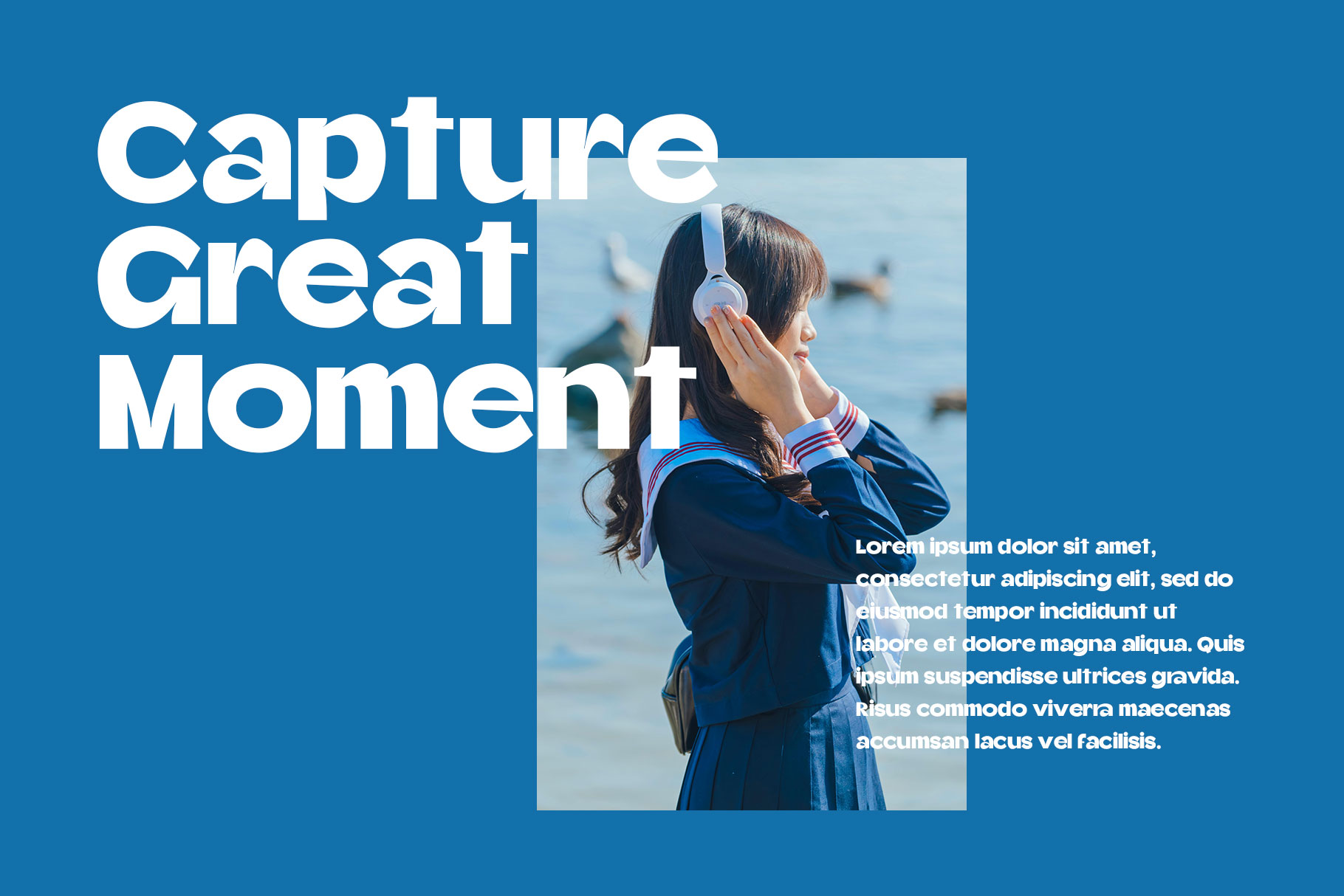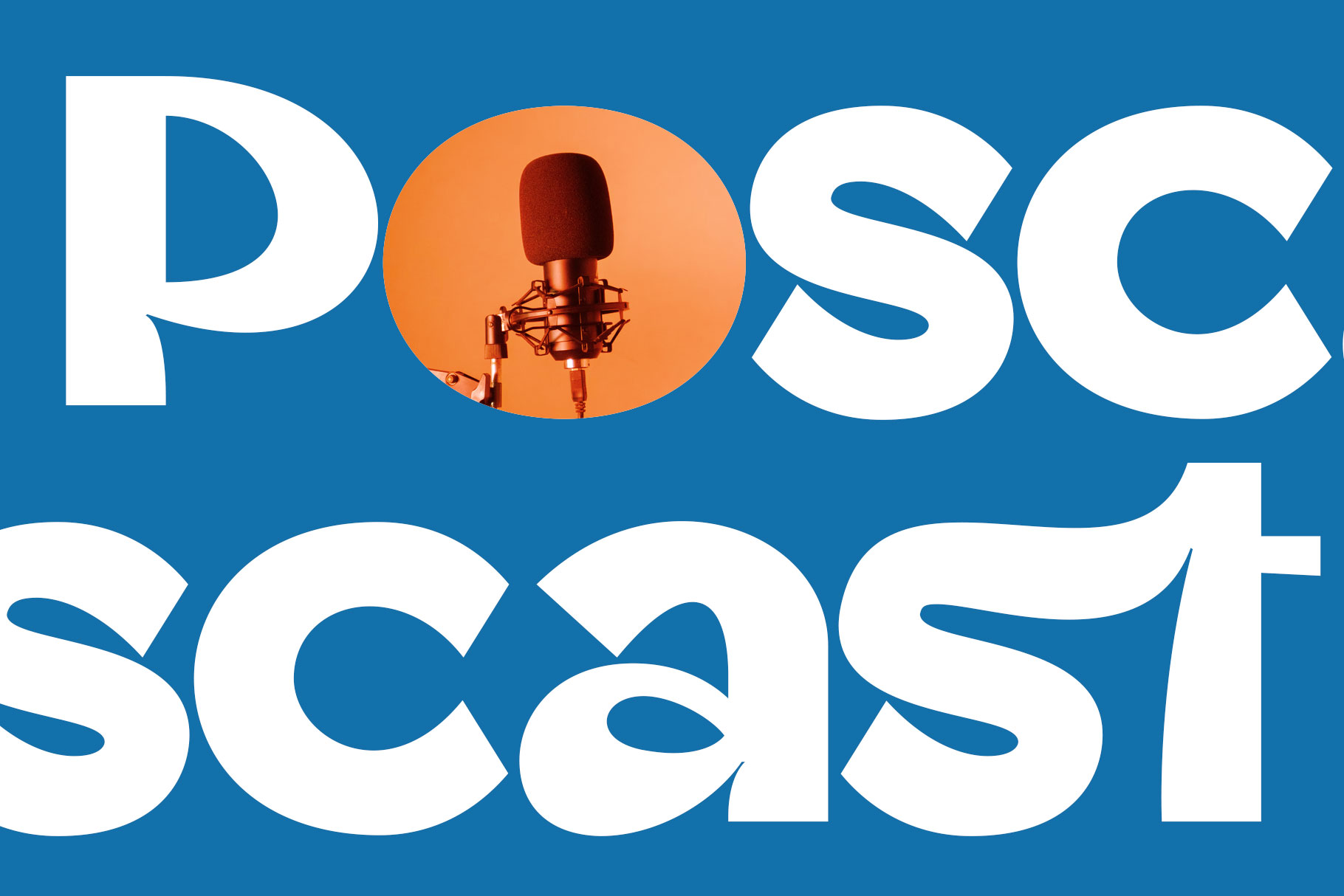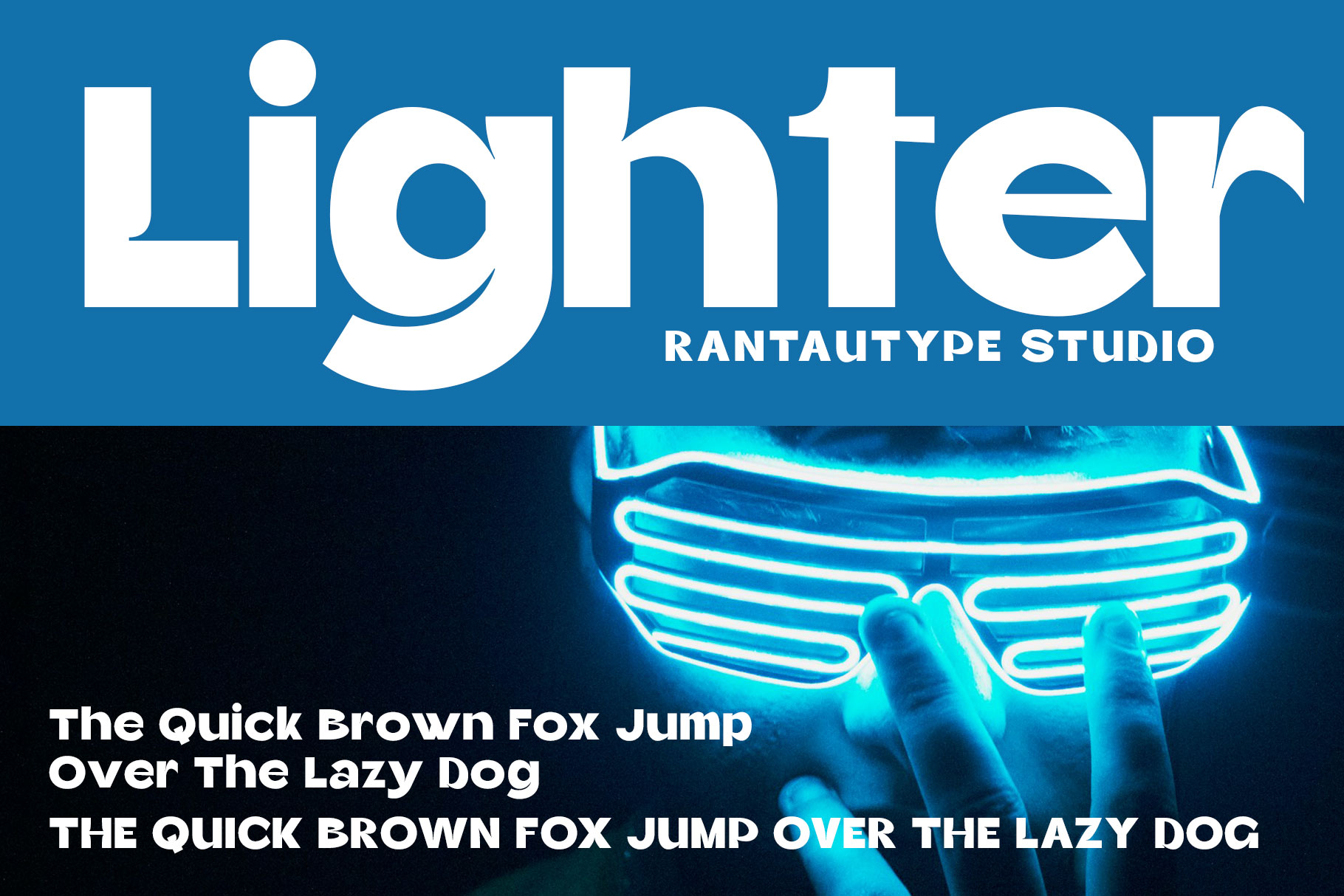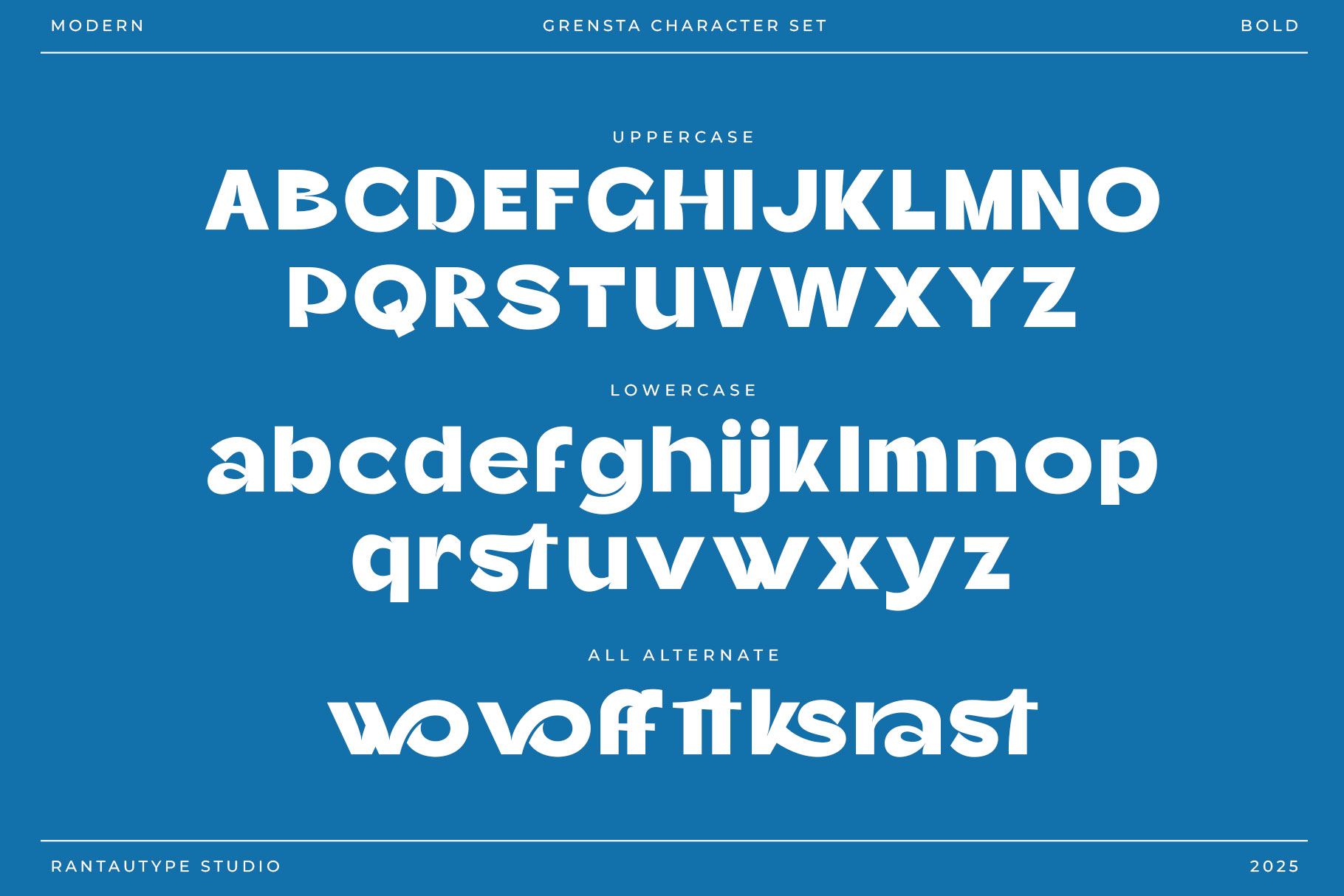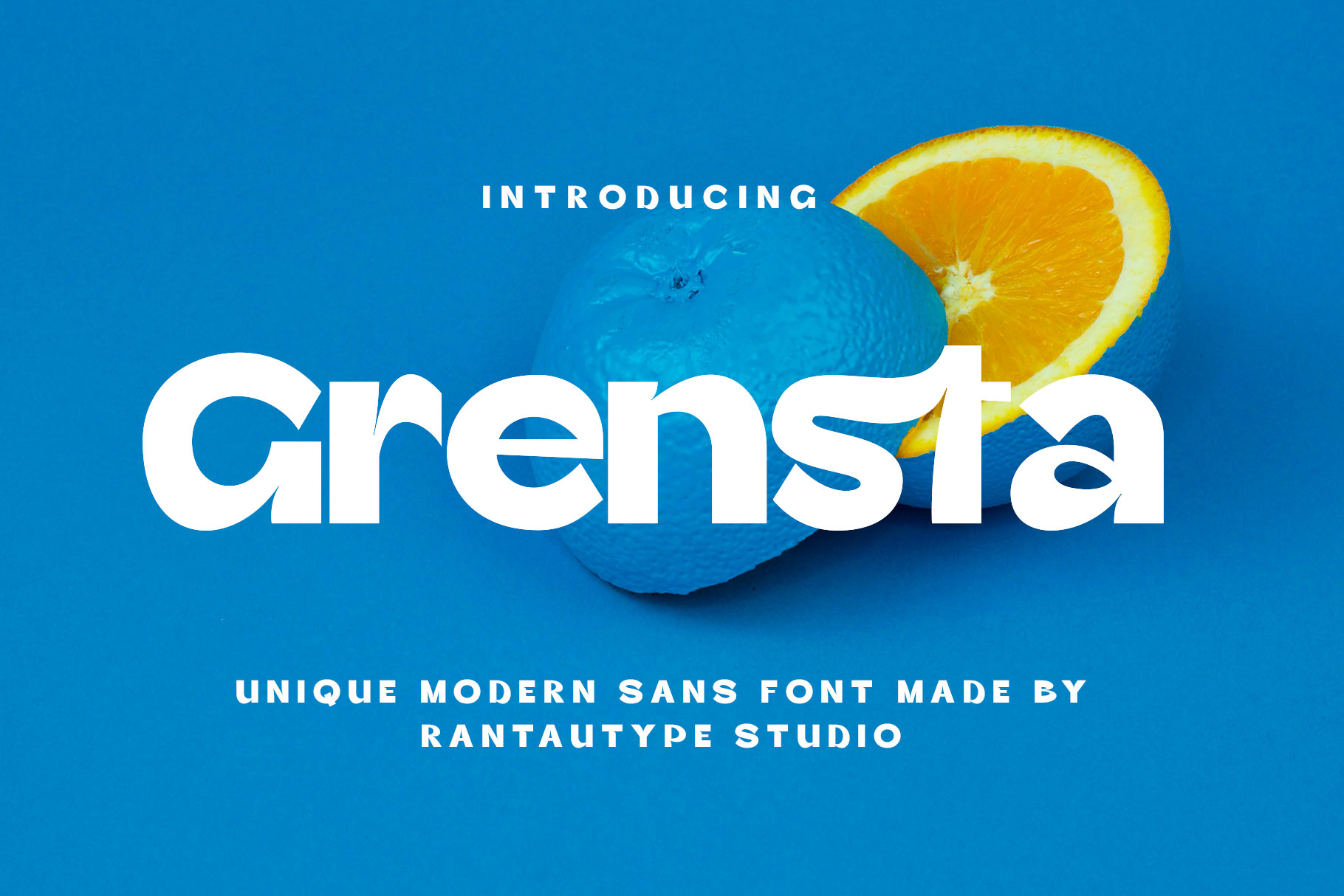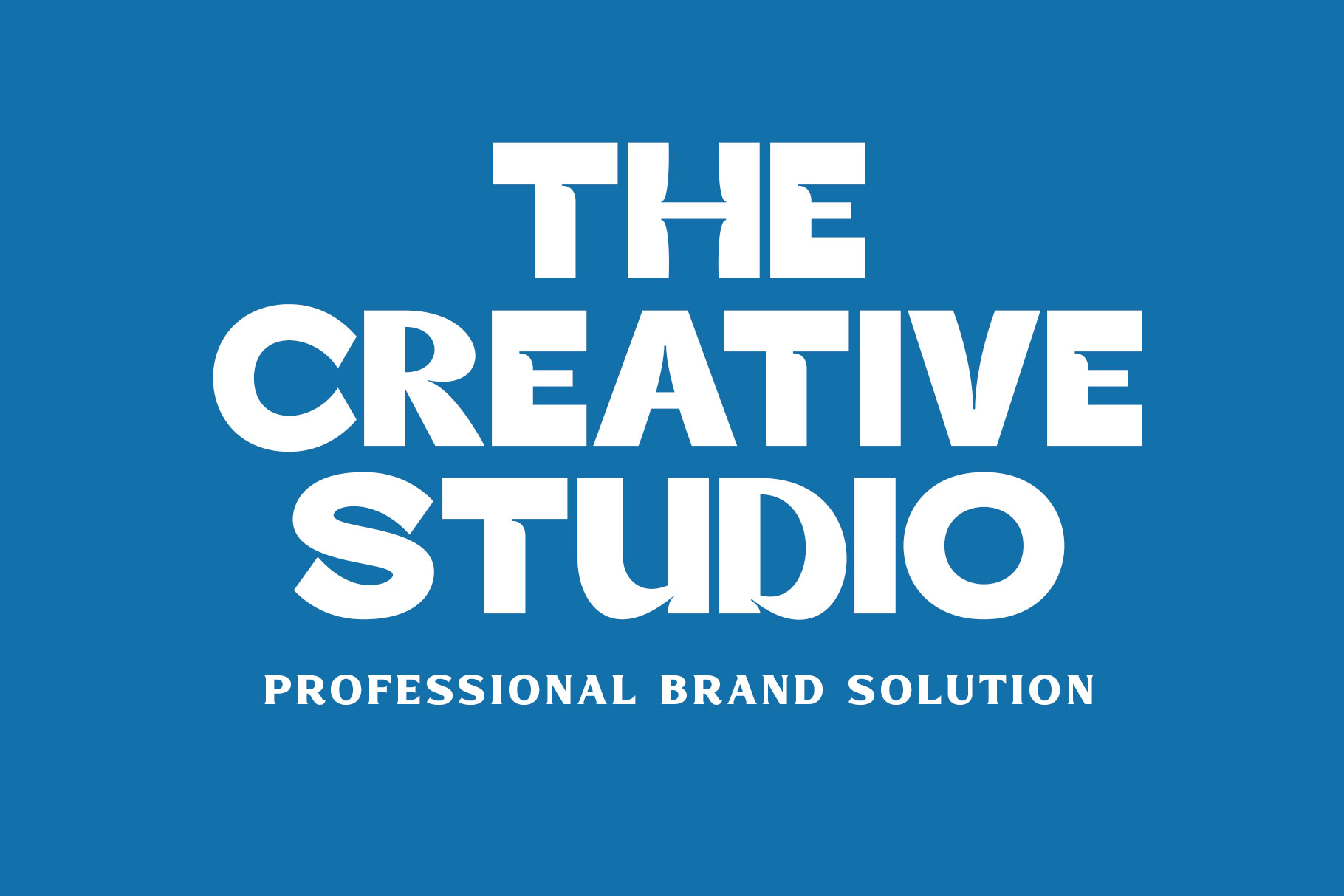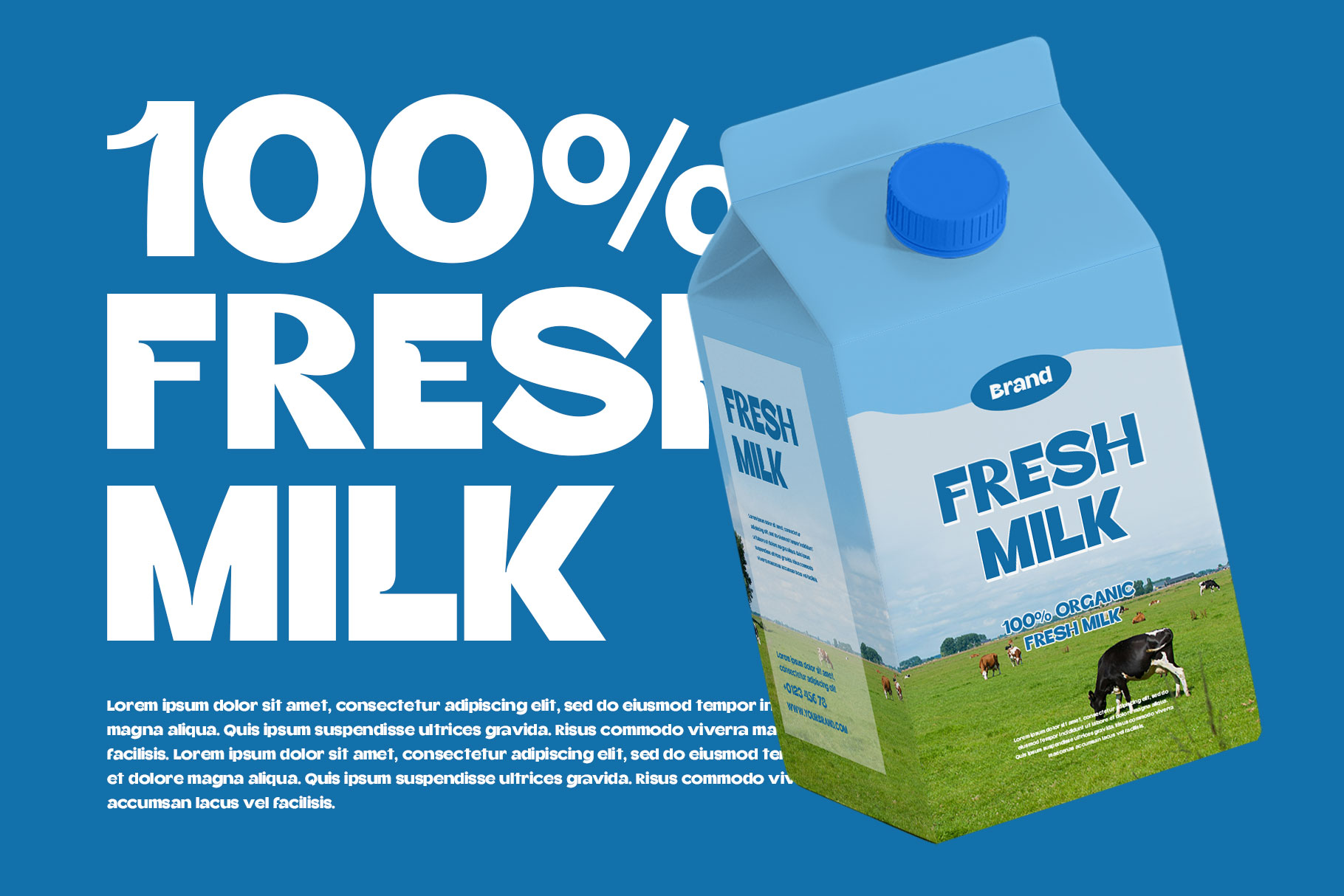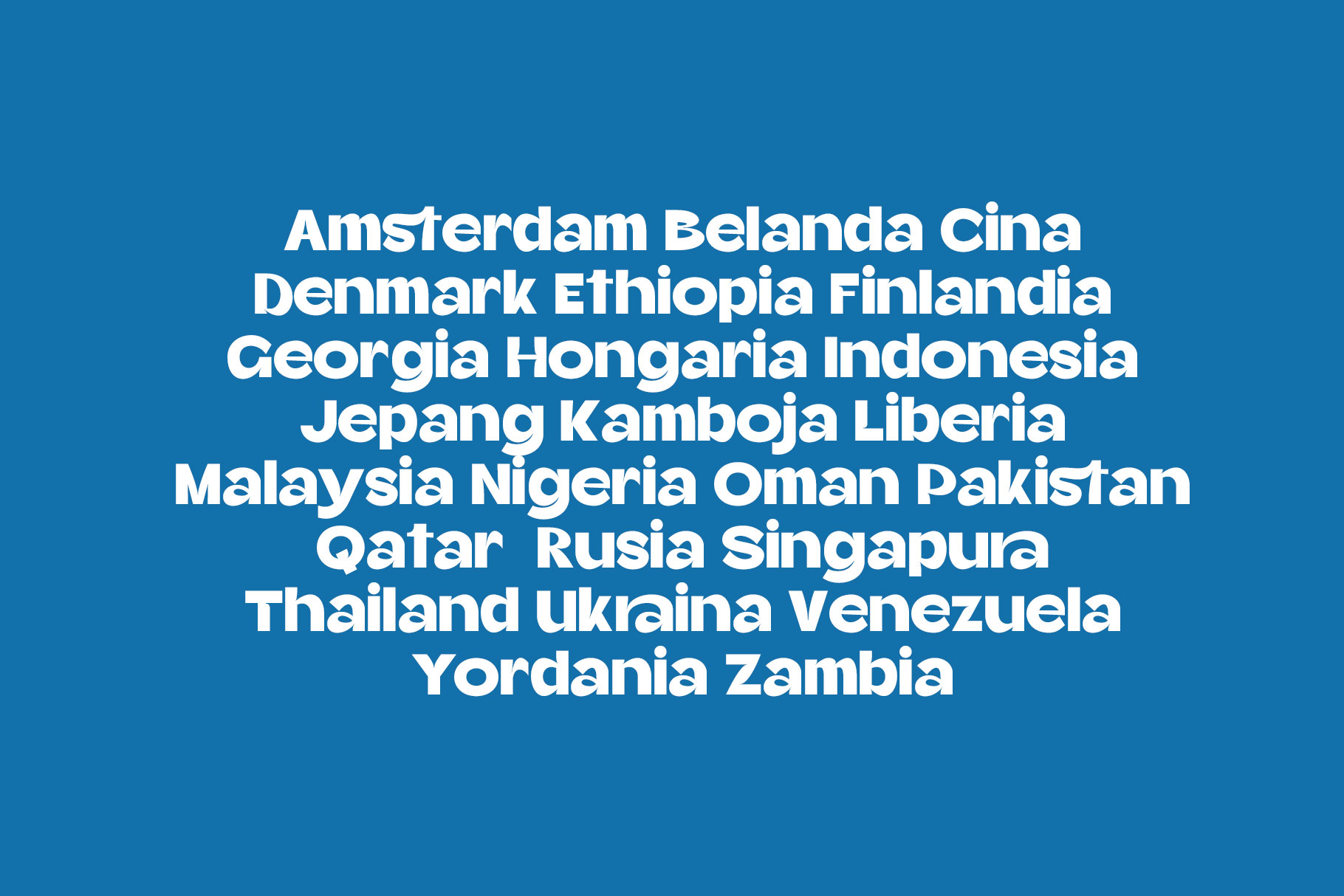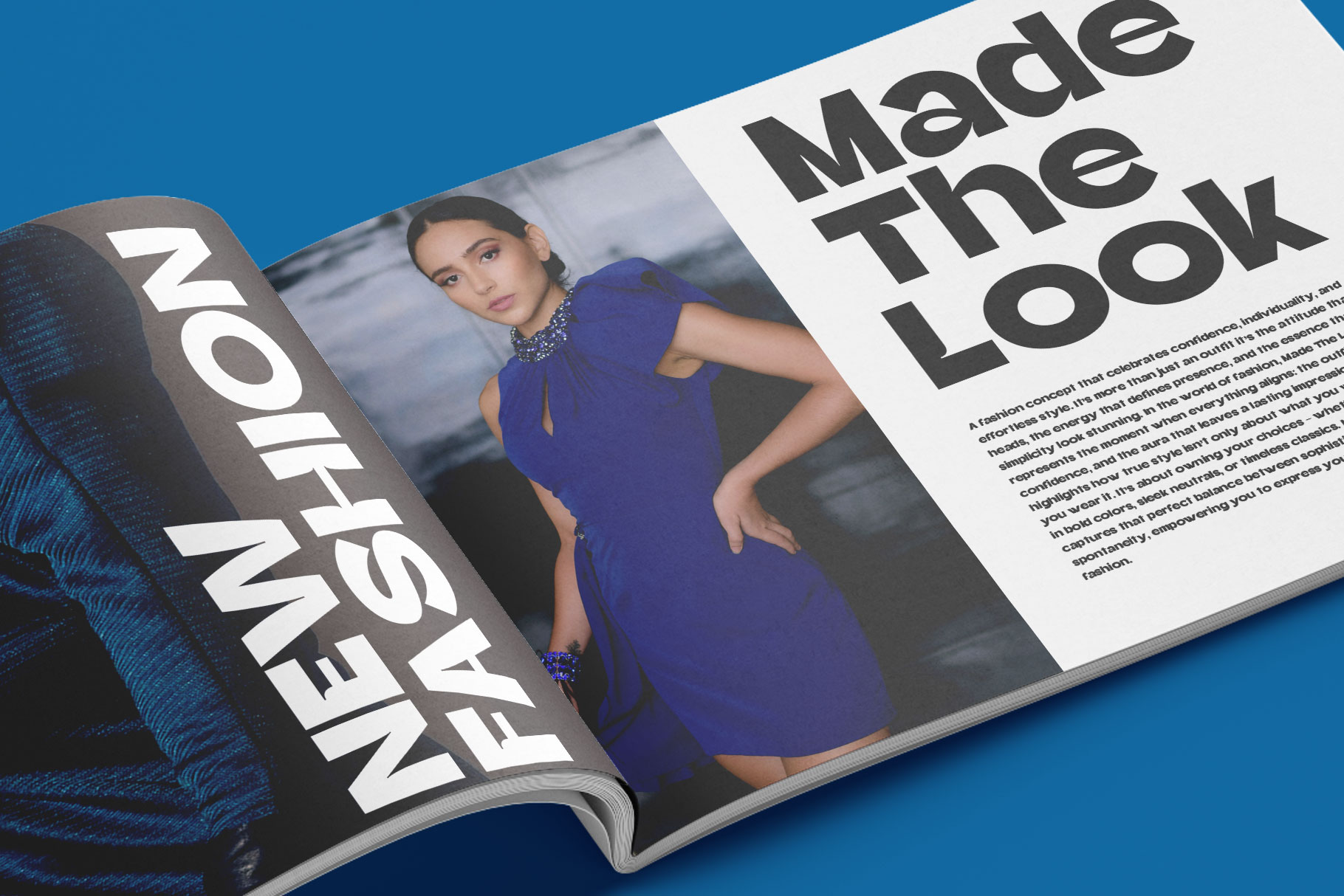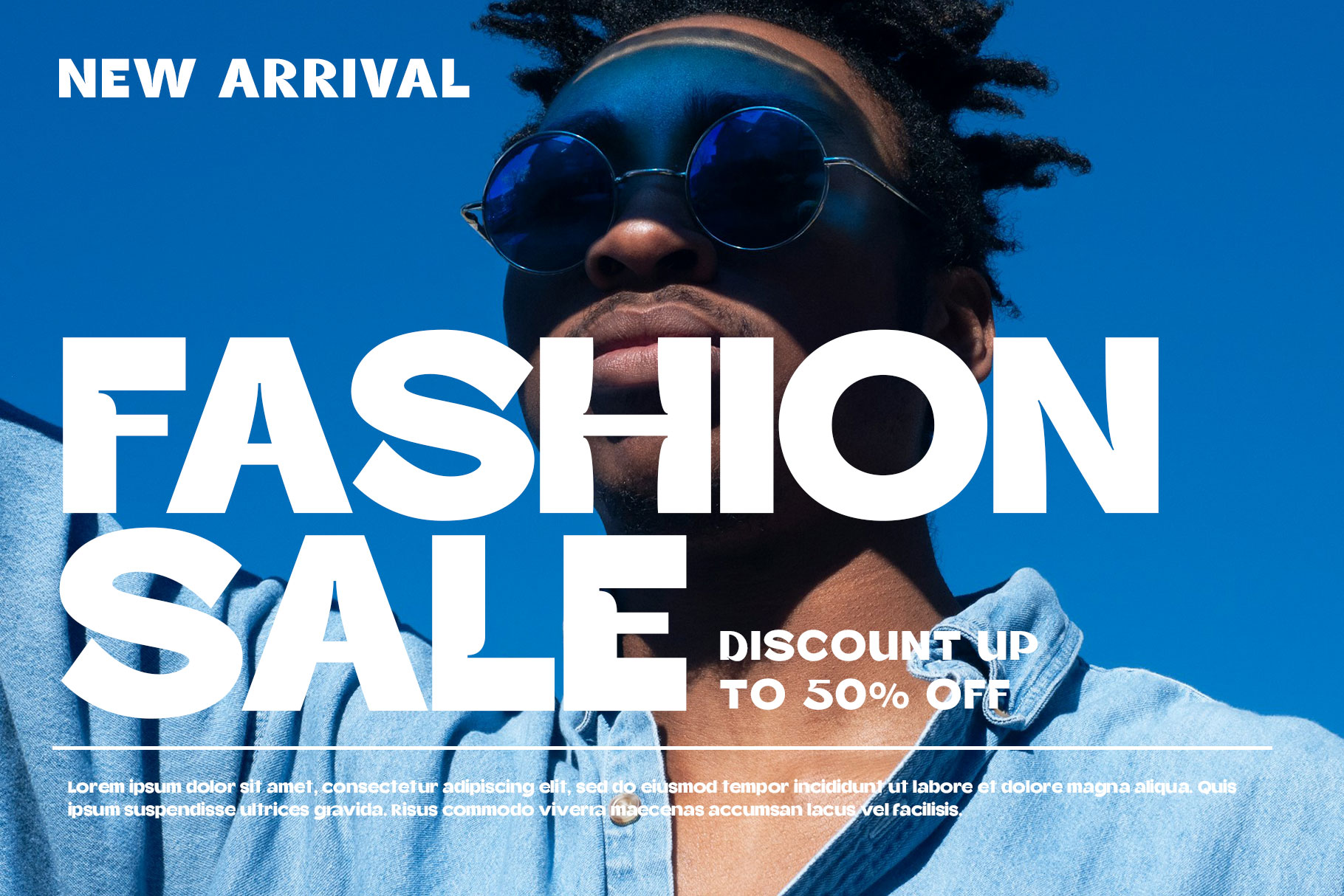
Grensta Modern Sans Font
Grensta is modern sans font with unique character shape. Grensta come with bold style convey confidence and strength. Grensta is a perfectly choice for any creative endeavor, chic, lifestyle design such as logotype, advertisements, watermark on photography, stationery, branding project, display and magazine, invitation, corporate brand, product design, label, business project and many other project with modern touch.